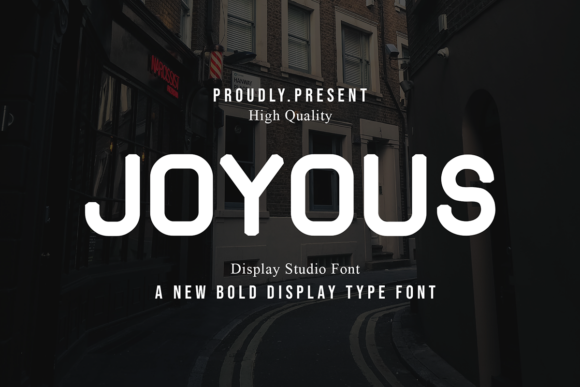
The Perfect Font to Brighten Up Your Creative Projects
Have you ever sat at your desk, staring at a blank screen, trying to find the perfect font to bring your design to life? You scroll through font libraries, searching for that one special typeface that captures the essence of your vision. And then, it hits you – the Joyous Font.
Designed to evoke feelings of happiness and excitement, the Joyous Font is a modern and cool display font that’s perfect for brand logos, invitations, greeting cards, or any kind of project that needs a little extra oomph. With its multilingual features and style variations, this typeface is a valuable asset for designers looking to take their work to the next level.
Whether you’re working on a personal project or a client’s campaign, the Joyous Font is sure to bring a touch of joy and professionalism to your design. Its versatility and beauty make it a must-have for any designer’s toolkit.
Key Features of Joyous Font
- Font Family: Joyous Font is a unique, modern sans-serif font family designed for digital use. It includes 12 styles, from Thin to Black.
- Unique Characteristics: Joyous Font features a distinctive, rounded design with a subtle flair at the terminals, giving it a friendly and approachable feel.
Design Review: Joyous Font
At first glance, Joyous Font seems to have a lot of potential. The font is playful, yet elegant, and it’s easy to imagine it being used in various creative projects. ✨ The rounded edges and curved lines give it a friendly feel that’s perfect for designing children’s books, greeting cards, or any other project that requires a lighthearted tone.
One of the standout features of Joyous Font is its versatility. It comes in a range of weights and styles, from light to bold, making it easy to adapt to different design needs. ✨ The font is also highly legible, even at small sizes, which is a major plus in my book.
- ⚠️ Joyous Font may not be the best choice for formal or professional projects, as it can come across as too playful or immature.
- ⚠️ The font’s rounded edges and curved lines can make it difficult to read at very small sizes or in low-contrast environments.
Overall, I’d say that Joyous Font is a solid choice for designers looking for a friendly, approachable font. While it may not be perfect for every project, it’s a great addition to any designer’s toolkit. With a little creative thinking, it’s easy to see Joyous Font being used in a wide range of applications.
The Joyous Font is ideal for:
- Creating eye-catching headings and titles.
- Designing engaging posters, flyers, and brochures.
- Adding a touch of whimsy to your digital content.
- Creating a cohesive brand identity.